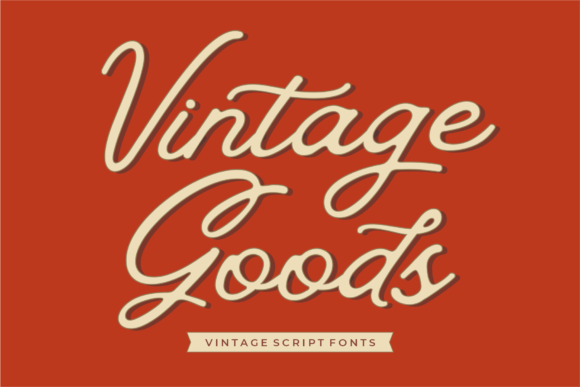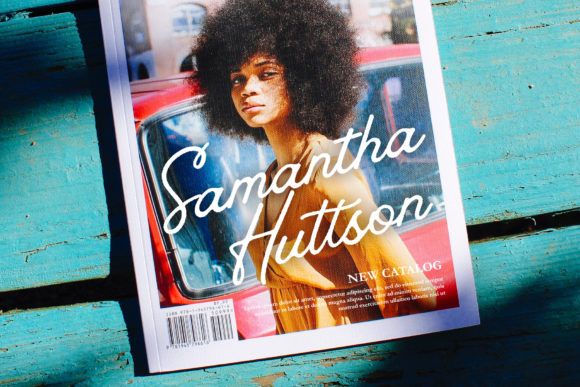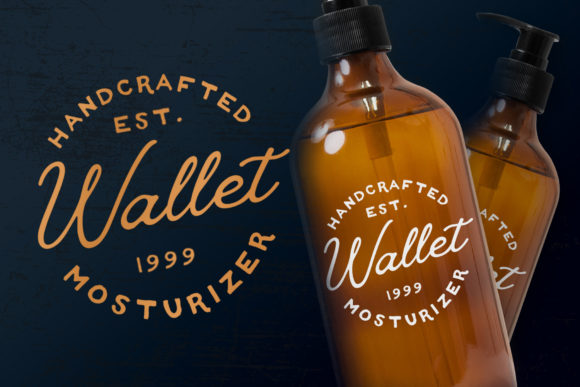
Vintage Goods Script Font
db-ku.com - Script & Handwritten -- Vintage Goods Script was inspired by the 1980s, a period that rediscovered and reconsidered calligraphy as a typeface, as well as photography and human emotions. The goal was to take the simple but effective designs from this era and shape them into a gorgeous script.